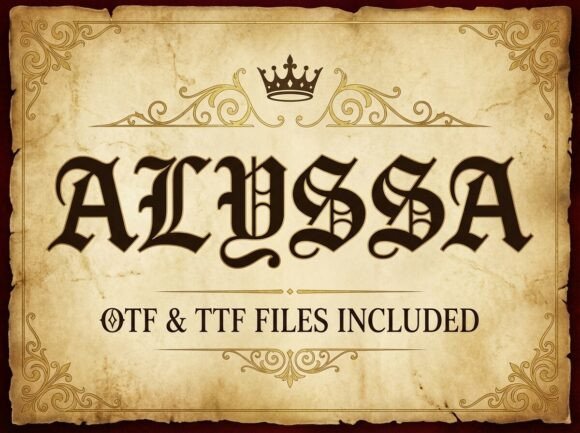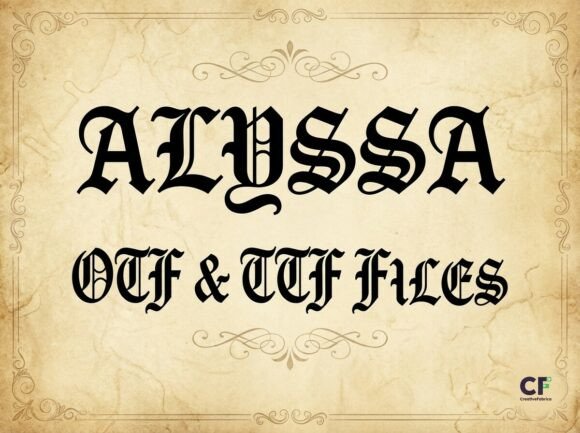
Alyssa Font: The Ultimate Decorative Display Font for Creative Designs
In the world of typography, a font can make or break a design. If you’re a creator looking to make a statement with your work, Alyssa Font is the perfect choice. This stunning decorative display font is designed to be the center of attention, featuring unique artistic elements and a strong visual personality that sets it apart from the ordinary.
Unleash Your Creativity with Alyssa Font
Alyssa Font is perfect for creators who want to add a touch of elegance and sophistication to their designs. With its intricate details and creative letterforms, this font is ideal for high-impact designs where the typography needs to do the talking. Whether you’re designing a modern poster, a unique brand identity, or eye-catching social media content, Alyssa Font adds an instant “wow” factor to any project.
One of the best things about Alyssa Font is its versatility. This font is perfect for a wide range of design applications, including:
- Poster Design: Create headlines that people can’t look away from. Alyssa Font is perfect for designing attention-grabbing posters that make a statement.
- Branding & Logos: Build a unique identity for creative businesses. With its artistic elements and strong visual personality, Alyssa Font is ideal for creating memorable brand identities and logos.
- Apparel & Merch: Perfect for T-shirts, hoodies, and tote bag designs. Alyssa Font adds a touch of elegance and sophistication to any apparel or merchandise design.
- Social Media: Make your quotes and announcements stand out in the feed. Alyssa Font is perfect for creating eye-catching social media content that grabs attention.
- Packaging: Give your products a premium feel with Alyssa Font. This font is perfect for designing packaging that stands out on store shelves.
Why Choose Alyssa Font?
So, why choose Alyssa Font over other decorative display fonts? Here are just a few reasons:
- Unique Artistic Elements: Alyssa Font features unique artistic elements that set it apart from other fonts.
- Strong Visual Personality: This font has a strong visual personality that makes it perfect for high-impact designs.
- Intricate Details: Alyssa Font features intricate details that add an extra layer of elegance and sophistication to any design.
- Professional and Polished Finish: Despite its creative and artistic elements, Alyssa Font maintains a professional and polished finish that’s perfect for a wide range of design applications.
Tips for Using Alyssa Font
Here are a few tips for getting the most out of Alyssa Font:
- Use it as a Headline Font: Alyssa Font is perfect for headlines and titles. Use it to grab attention and make a statement.
- Experiment with Colors: Alyssa Font looks great in a wide range of colors. Experiment with different colors to find the perfect look for your design.
- Pair it with Other Fonts: Alyssa Font pairs well with other fonts. Experiment with different font combinations to find the perfect look for your design.